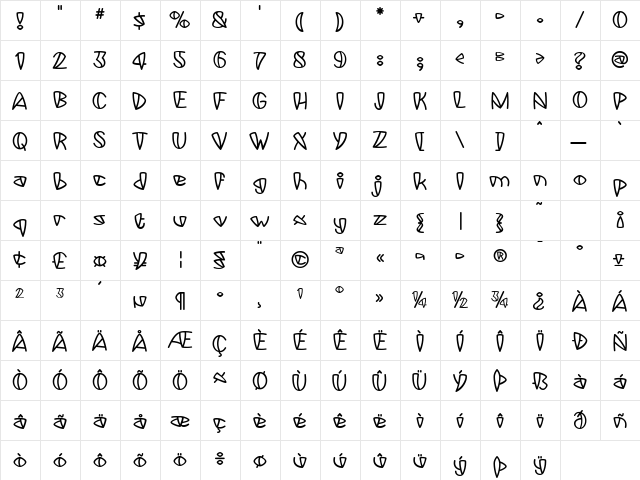
Botica Regular
Design Context for Botica Typeface
Botica is a composed and adaptable typeface that performs quietly and consistently across a wide range of design contexts.